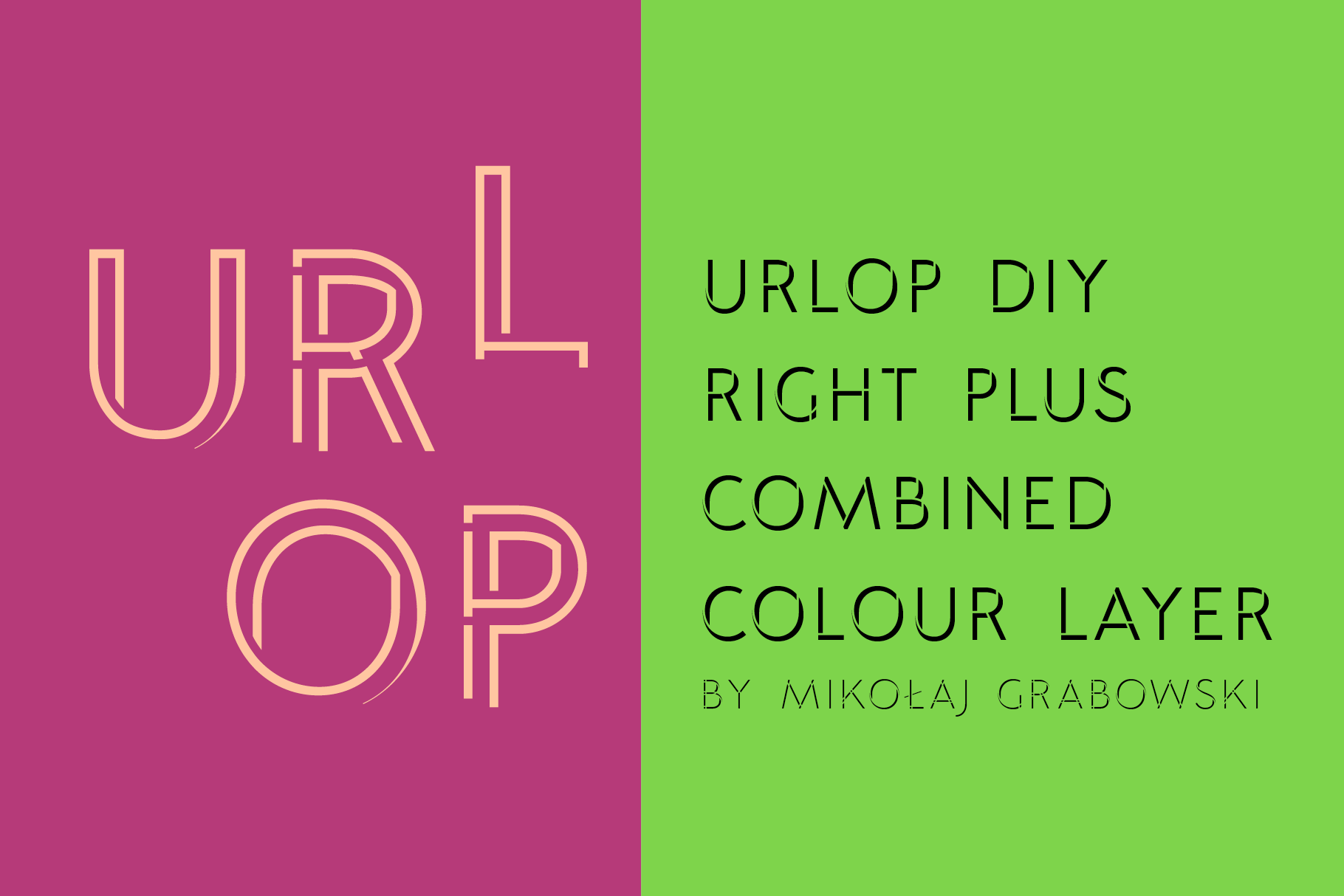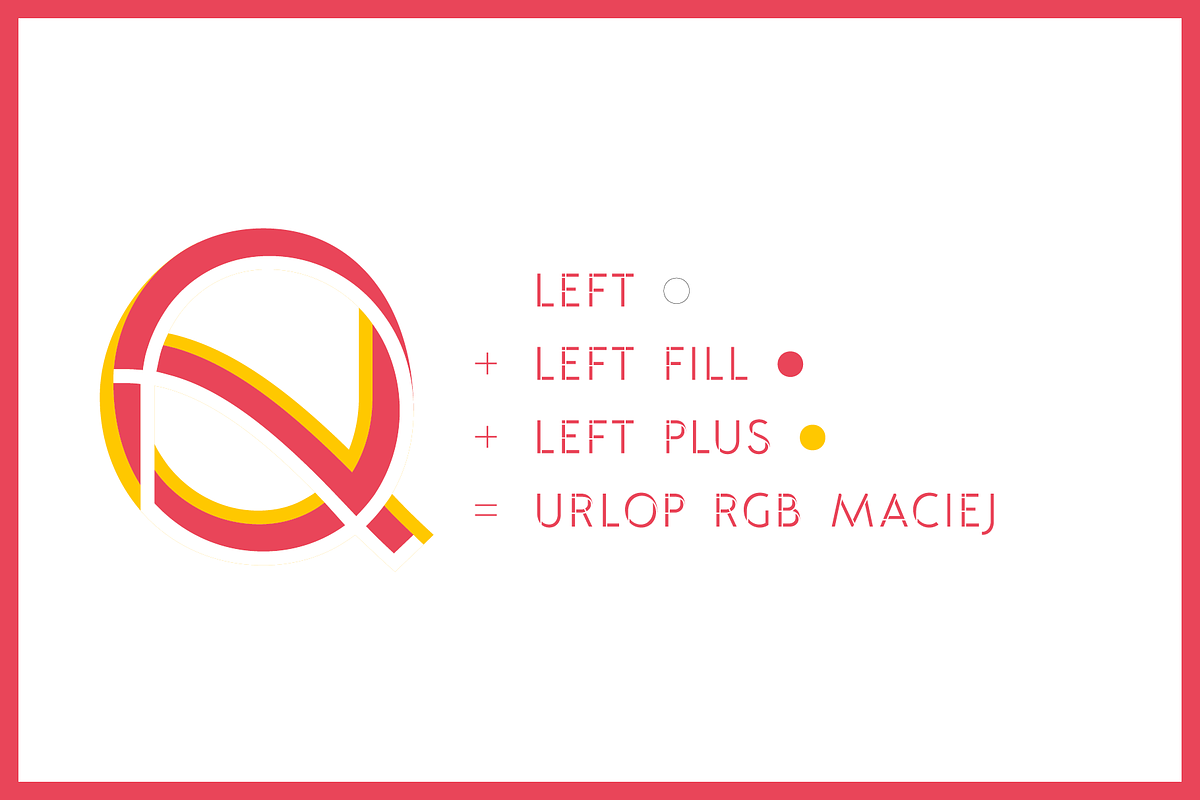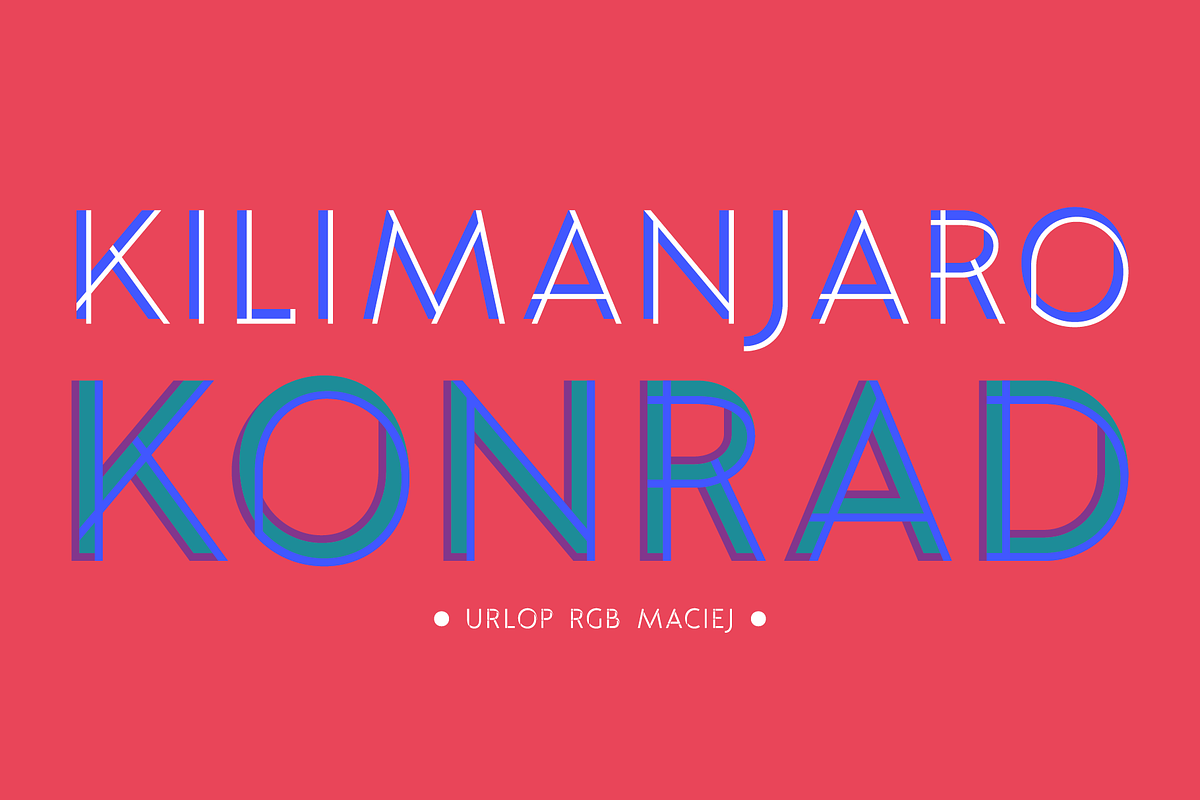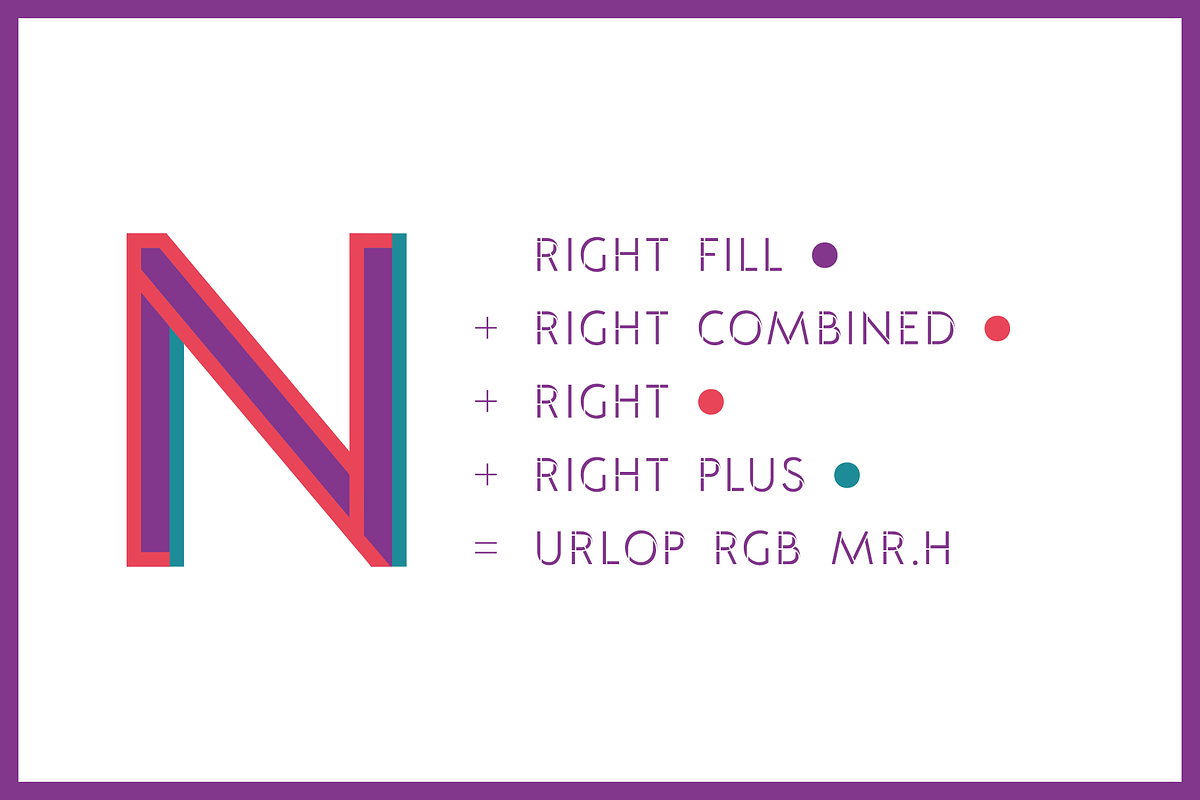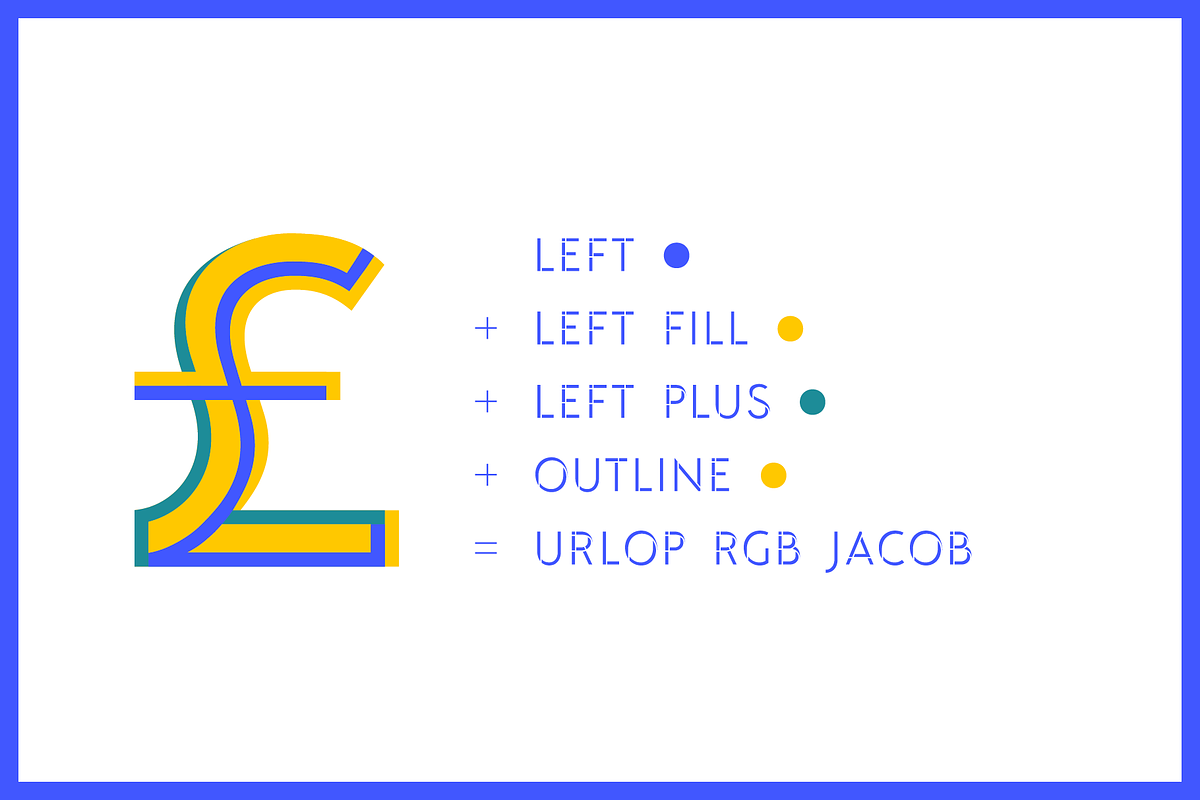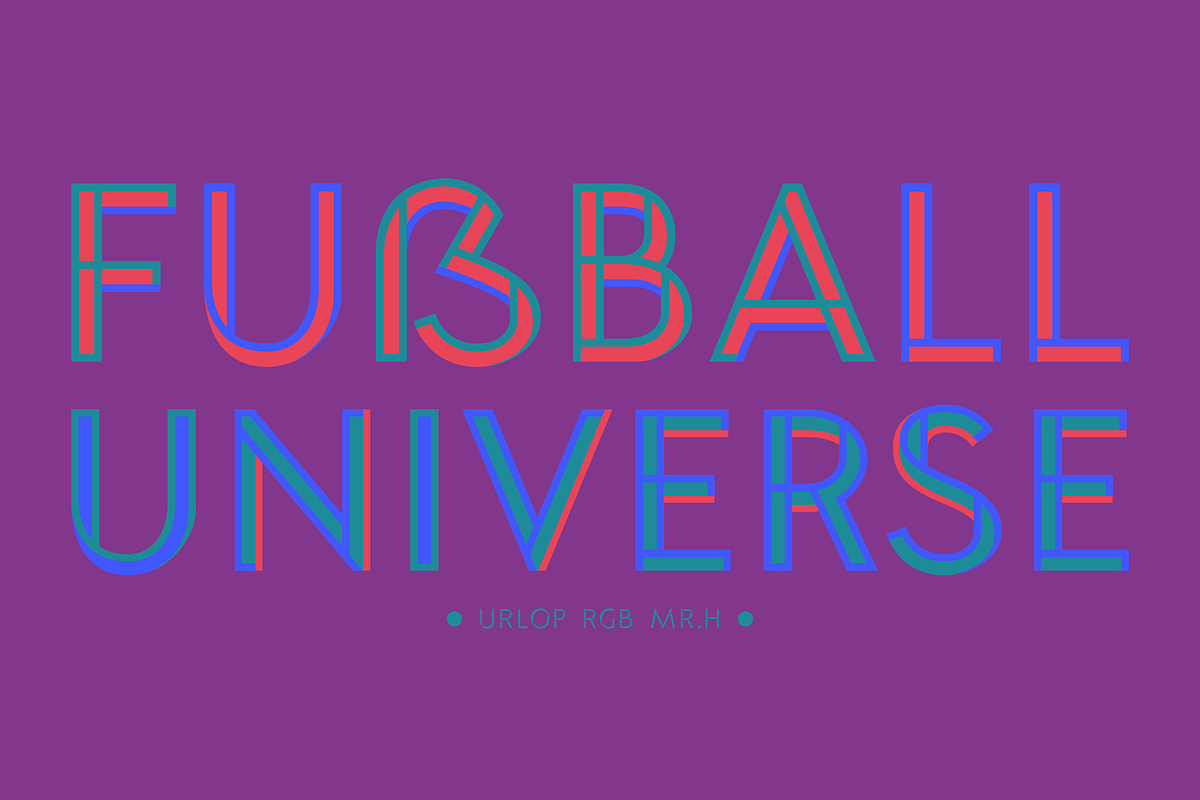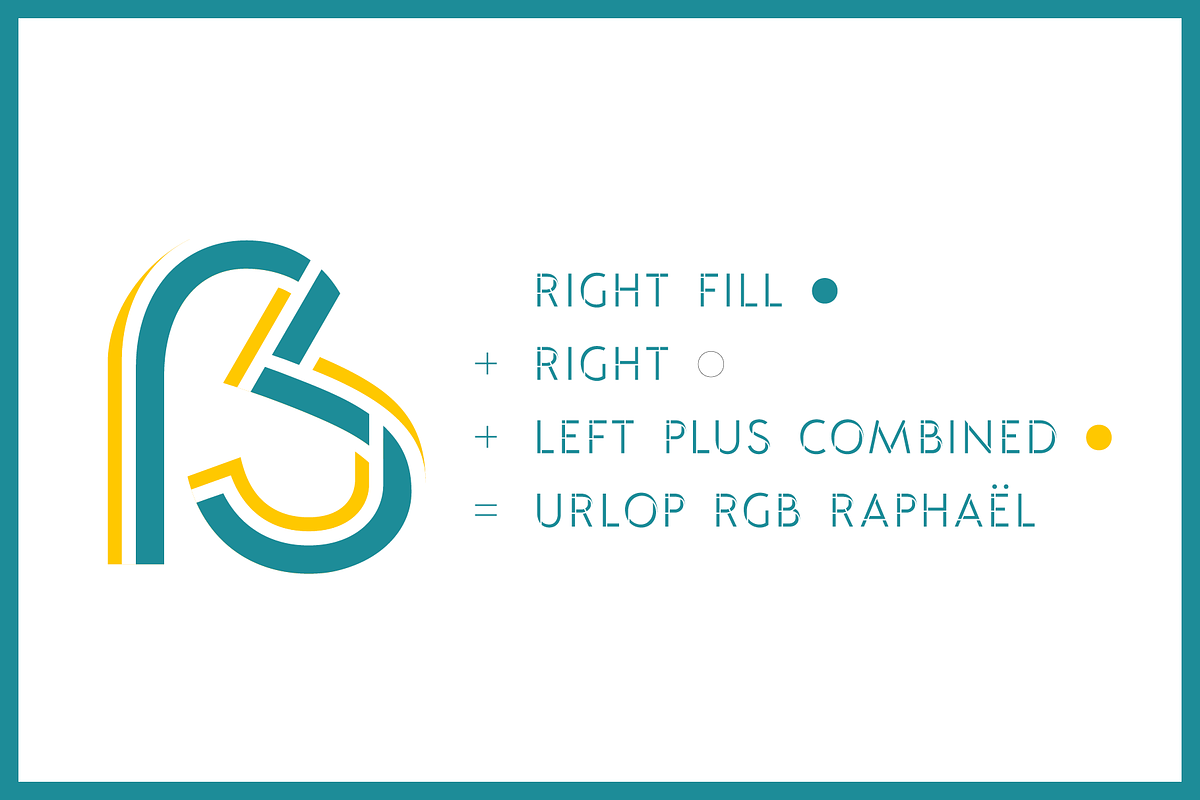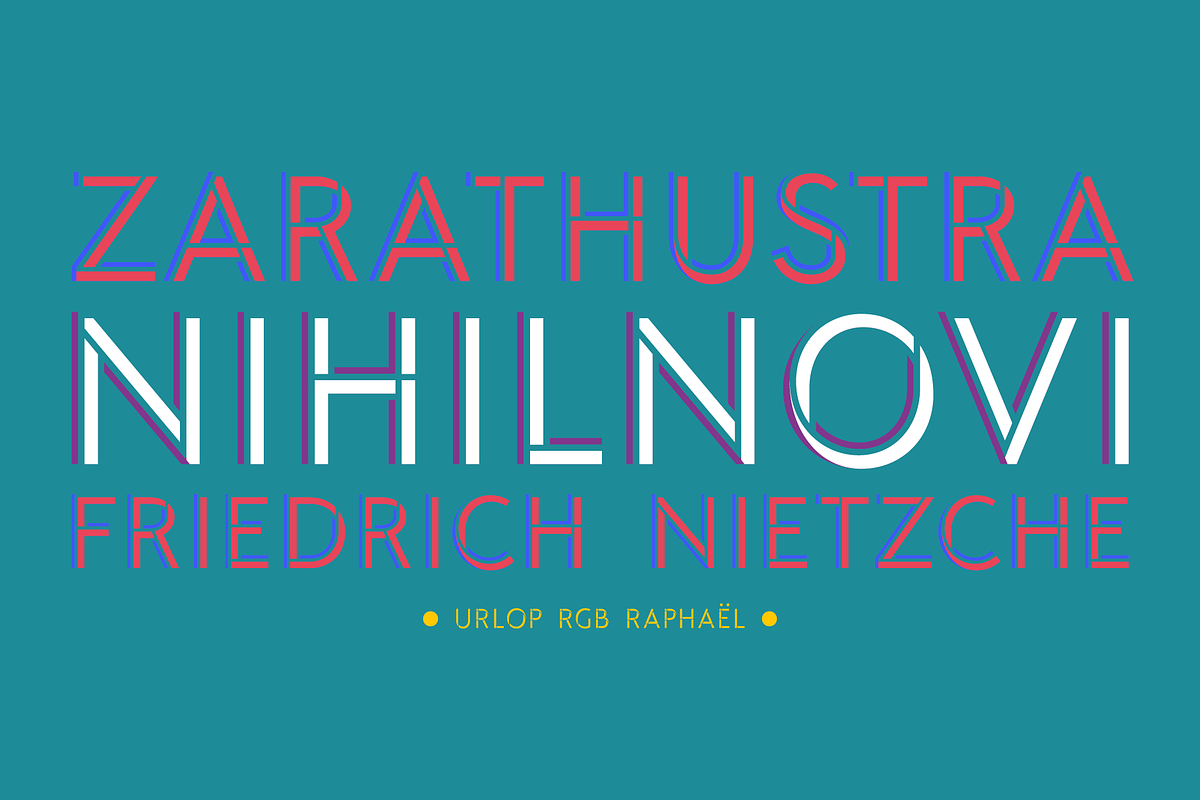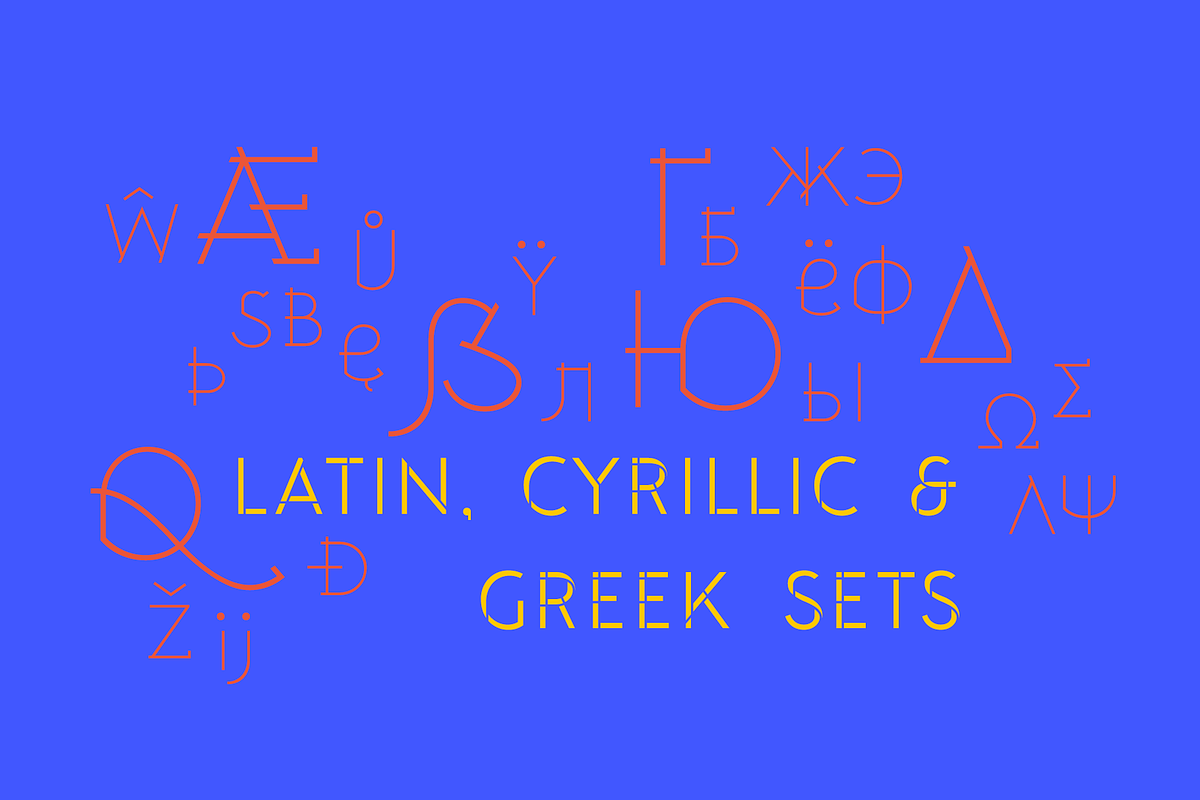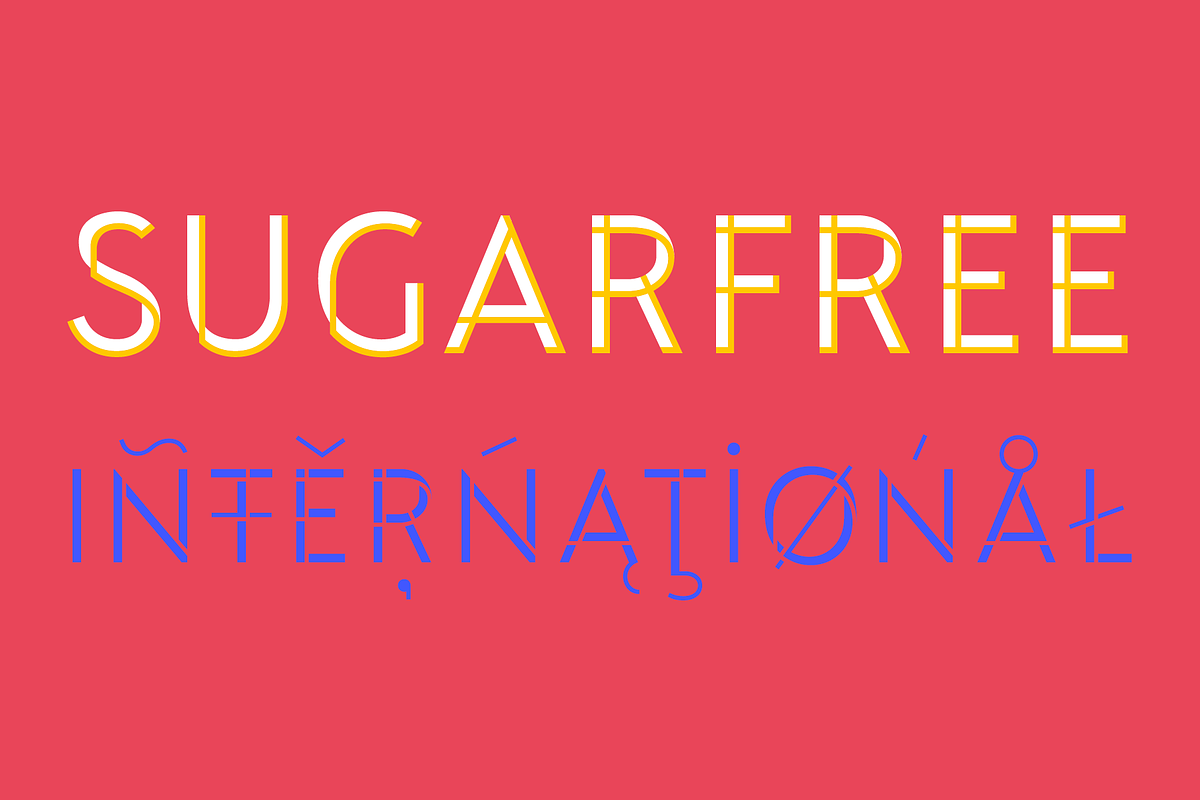
URLOP DIY Right Plus Combined
Colour is more fun than black, but multicolour is even better. Let me introduce URLOP, a wide type family suitable for your fancy posters, headlines, covers, illustrations, websites, initials, blackmails, chronicles, signboards, poems and many others. Twelve basic styles, which make the overall construction, give a wide range of opportunities. All of them, being able to mix with each other, vary from a thin INSIDE, through a medium FILL, to a double-stem PLUS styles. And then comes a range of colour fonts, so you don’t have to waste any of your precious time for experiments, because I’ve already done it for you!
URLOP is an all-caps display collection consisting of three sub-families of fonts, divided by the usage they are designed for. First of all, there is a wide range of alphabets made in the new OpenType-SVG colour fonts format. This is quite a novelty and a very promising technology at the same time. It allows designers to store colour information inside the font. Due to my experience with layered colour thinking that I explored in my Brst family - Epilepsja, I decided to make several preset layer combinations in this auspicious format. This sub-group is tagged RGB. Make sure that your Beld of usage and software support OT-SVG format. However, if you feel a need to experiment in the old-fashioned way, you may buy separate layers under the DIY tag. The last group is very similar to the DIY, but it was optimised to look better when standing without other layers. It’s called PRO*. All styles cover Latin alphabets of Europe, basic Cyrillic and Greek sets.